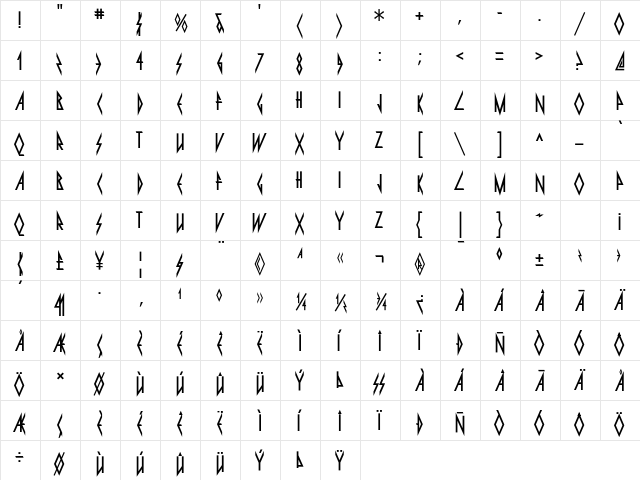
Pyrite Regular Font Preview
Pyrite Regular
Pyrite Regular Font Details
Design Context for Pyrite Typeface
Pyrite is a composed and adaptable typeface that performs quietly and consistently across a wide range of design contexts.